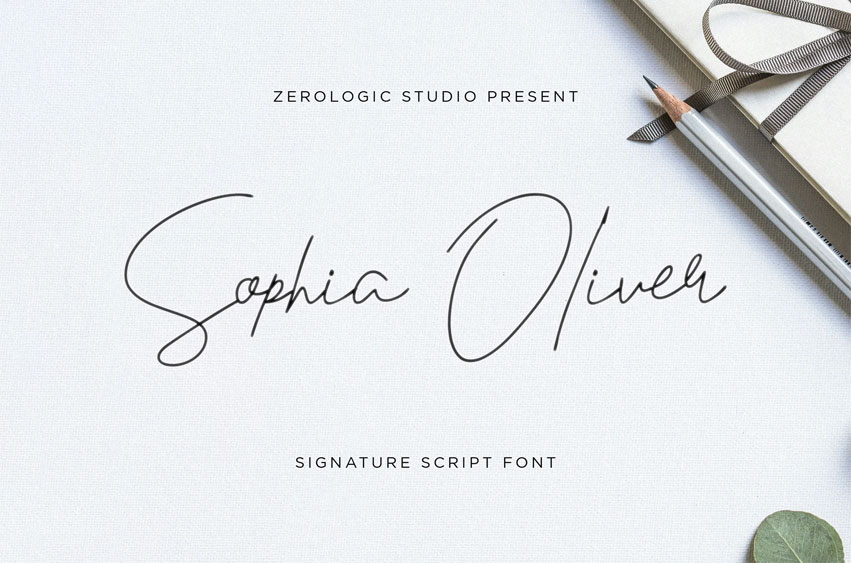
Sophia Oliver Font is the latest Display font from us, very suitable for use in your work presentations such as blog design, modern design, web design, invitation cards, and others. please download and enjoy!